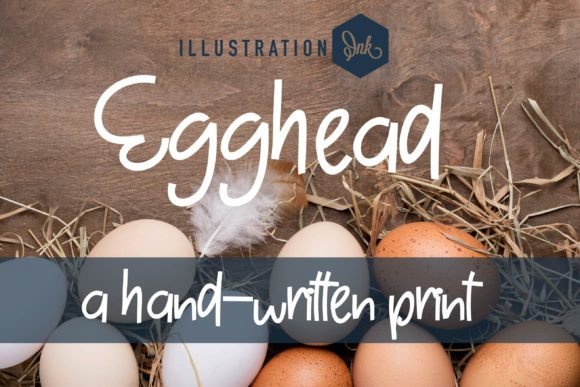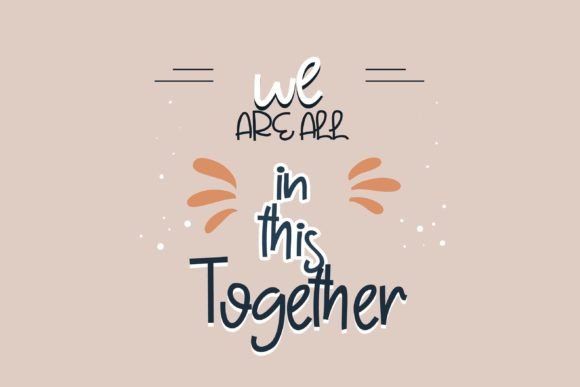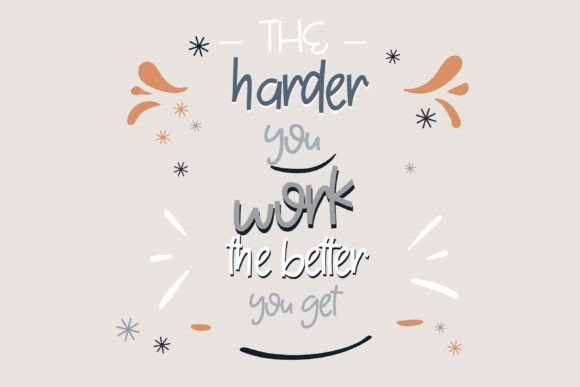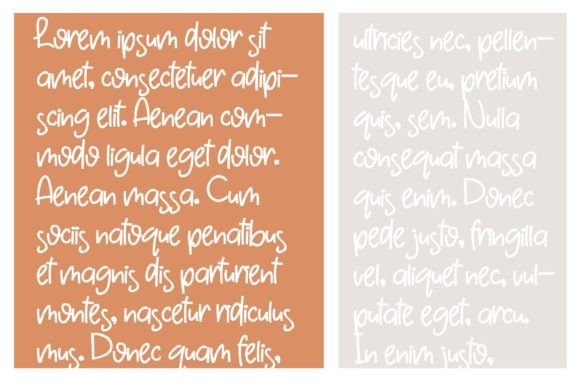
Egghead Font: A Cute Handwritten Script for Playful Branding
About the Egghead Font
The Egghead Font offers a perfect balance of form and function for your design needs. This hand-crafted script font is very casual with an easy-going attitude.
Egghead Font’s casual nature makes it ideal for projects requiring a friendly, approachable feel. It works exceptionally well in headlines, short paragraphs on invitations or greeting cards, and logos needing a handcrafted touch. However, its informal style is unsuitable for body text, long-form content, or UI elements where legibility is paramount.
Pairing Egghead with a clean sans-serif like Open Sans for body copy creates a balanced contrast, maintaining readability while retaining the font’s unique charm. Alternatively, a classic serif like Garamond can add a touch of sophistication for more formal applications.
The font’s overall personality is best described as playful and approachable, making it a perfect choice for brands targeting a youthful or creative demographic.
Egghead Font Usage Examples
Egghead Font Example